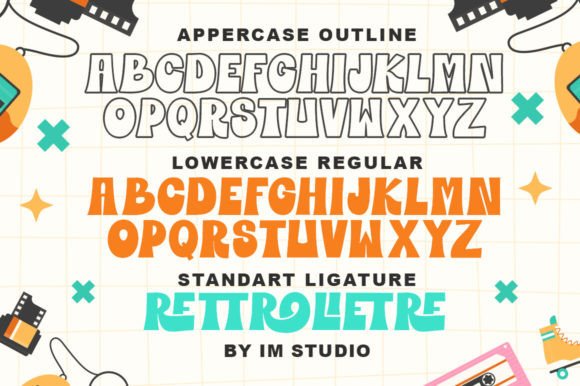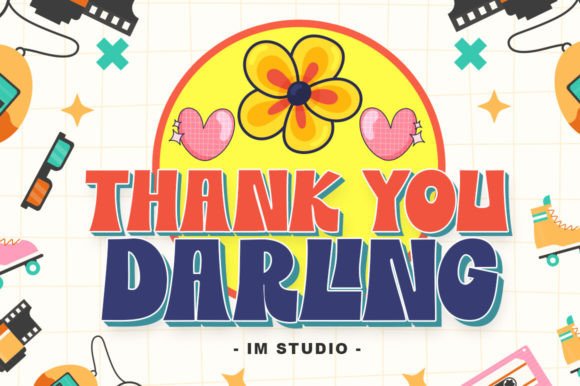
Retro Font
Retro is a versatile, stylish, and fun retro display font, perfect for a wide spectrum of applications such as greeting cards, headlines, and more! Add it to one of your creative projects, and it will give a romantic and beautiful impression.